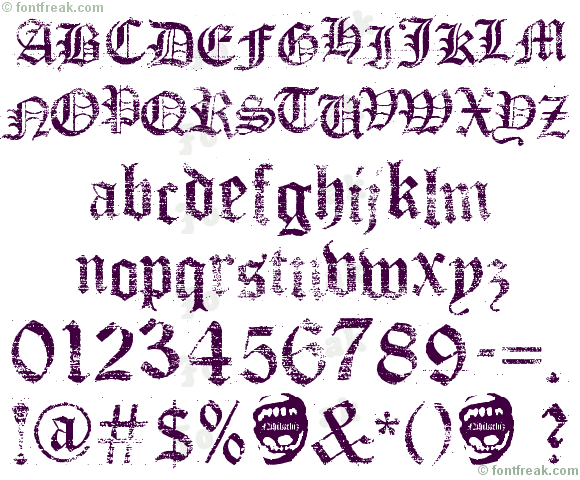
Faith Collapsing
About Faith Collapsing
Faith Collapsing, crafted by Nihilschiz Fonts in 2006, is a striking display typeface that captures the eye with its unique character. This freeware font stands out in the decorative category, offering a distinctive design that blends gothic influences with modern aesthetics. The visual characteristics of Faith Collapsing include a bold stroke weight, creating an impactful presence while maintaining an intriguing level of contrast between thick and thin lines. The spacing is thoughtfully designed to enhance readability while allowing the decorative elements to shine, making it ideal for attention-grabbing designs.
This font is perfect for a variety of use cases, including wedding invitations that aspire to invoke a sense of elegance and drama, movie posters that need to convey a dark, mysterious atmosphere, and restaurant menus that aim to impress diners with a unique visual appeal. Additionally, it can serve well in branding projects for niche businesses looking to create a memorable identity. The target audience for the Faith Collapsing font includes graphic designers, small business owners, and content creators seeking to elevate their visual content with a distinctive, artistic flair.
What sets the Faith Collapsing font apart is its ability to evoke emotion and intrigue through its design. Its bold, decorative style captures attention while remaining versatile enough for various applications. For those seeking a unique typeface that offers both personality and functionality, the Faith Collapsing font free download is an excellent choice. Its artistic qualities and distinctive charm make it a standout option for anyone looking to make a lasting impression in their design projects.